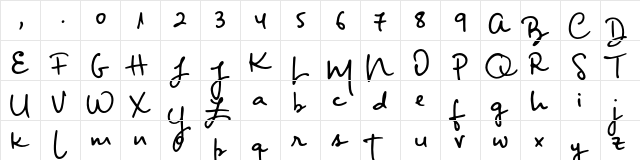
Big River Script Sample Regular
| Foundry | Ana Parracho |
| Designer | Ana Parracho |
Design Context for Big River Script Sample Typeface
Big River Script Sample brings a calligraphic fluidity to the page — its connecting strokes and expressive curves give it an unmistakably human quality.
Font Pairing: Combine Big River Script Sample with a simple geometric sans for maximum contrast — the tension between flowing curves and clean structure is a classic typographic pairing.
Pro Tip: Use Big River Script Sample for short runs of text — names, titles, or taglines. Extended body copy in script faces tires the eye quickly.